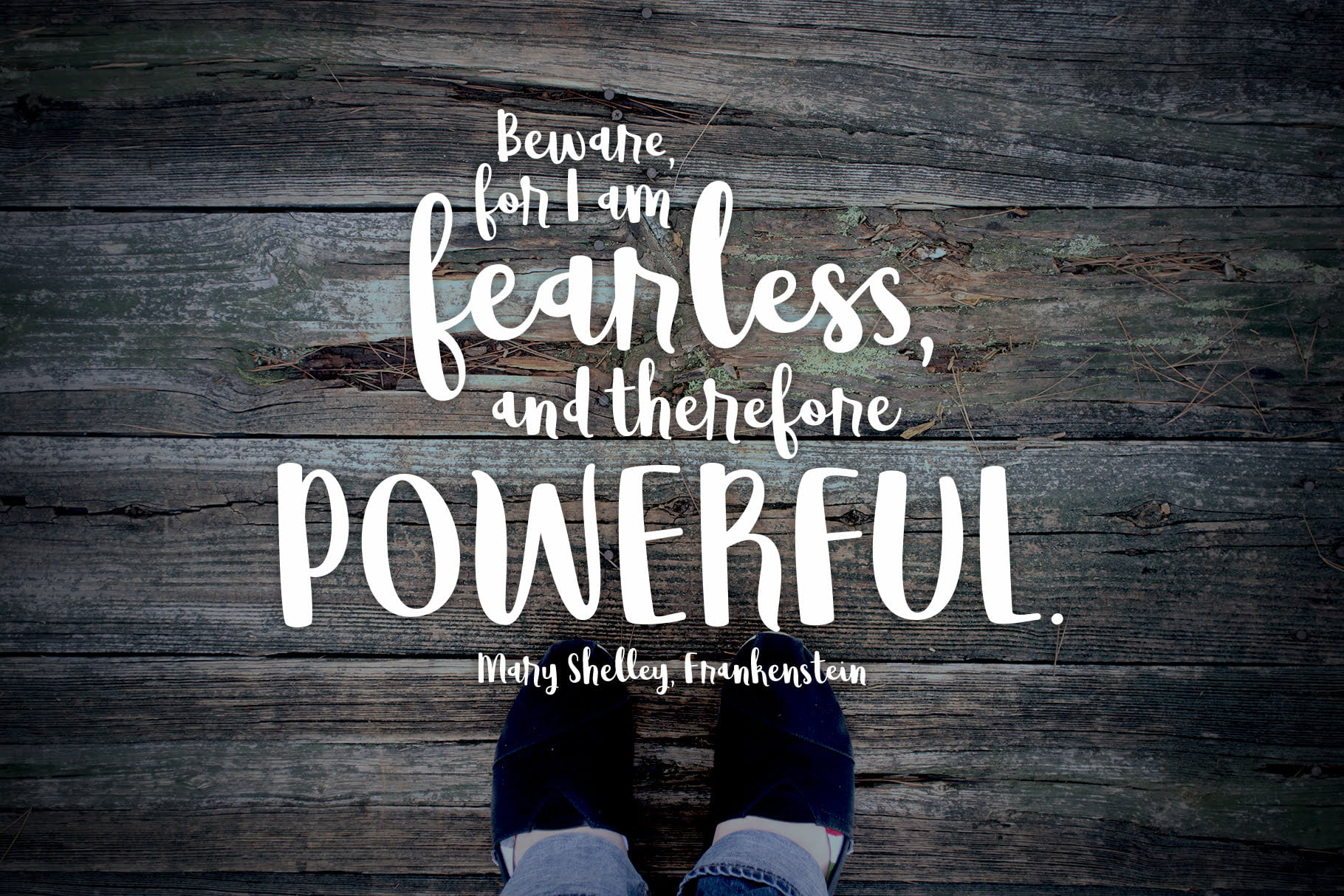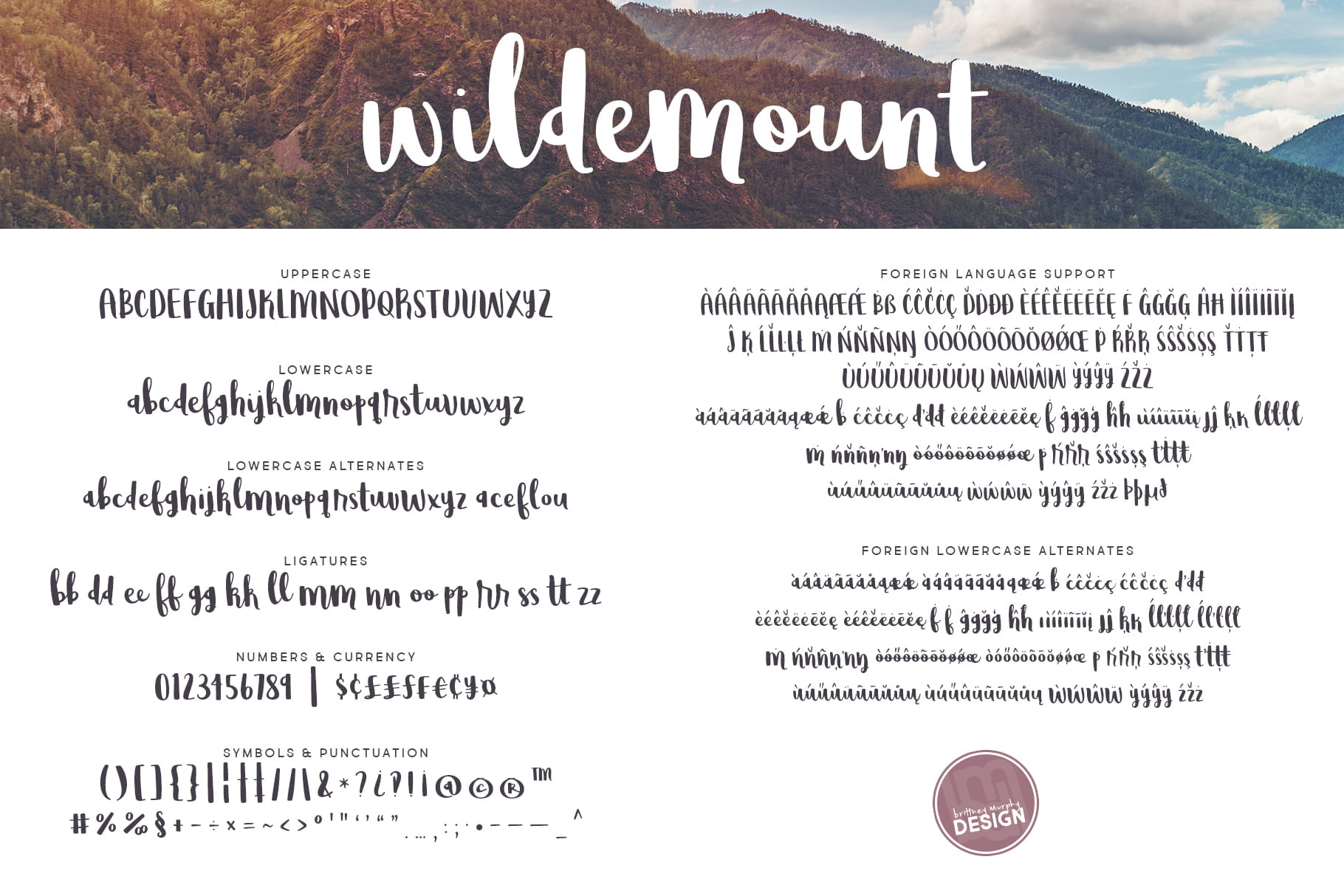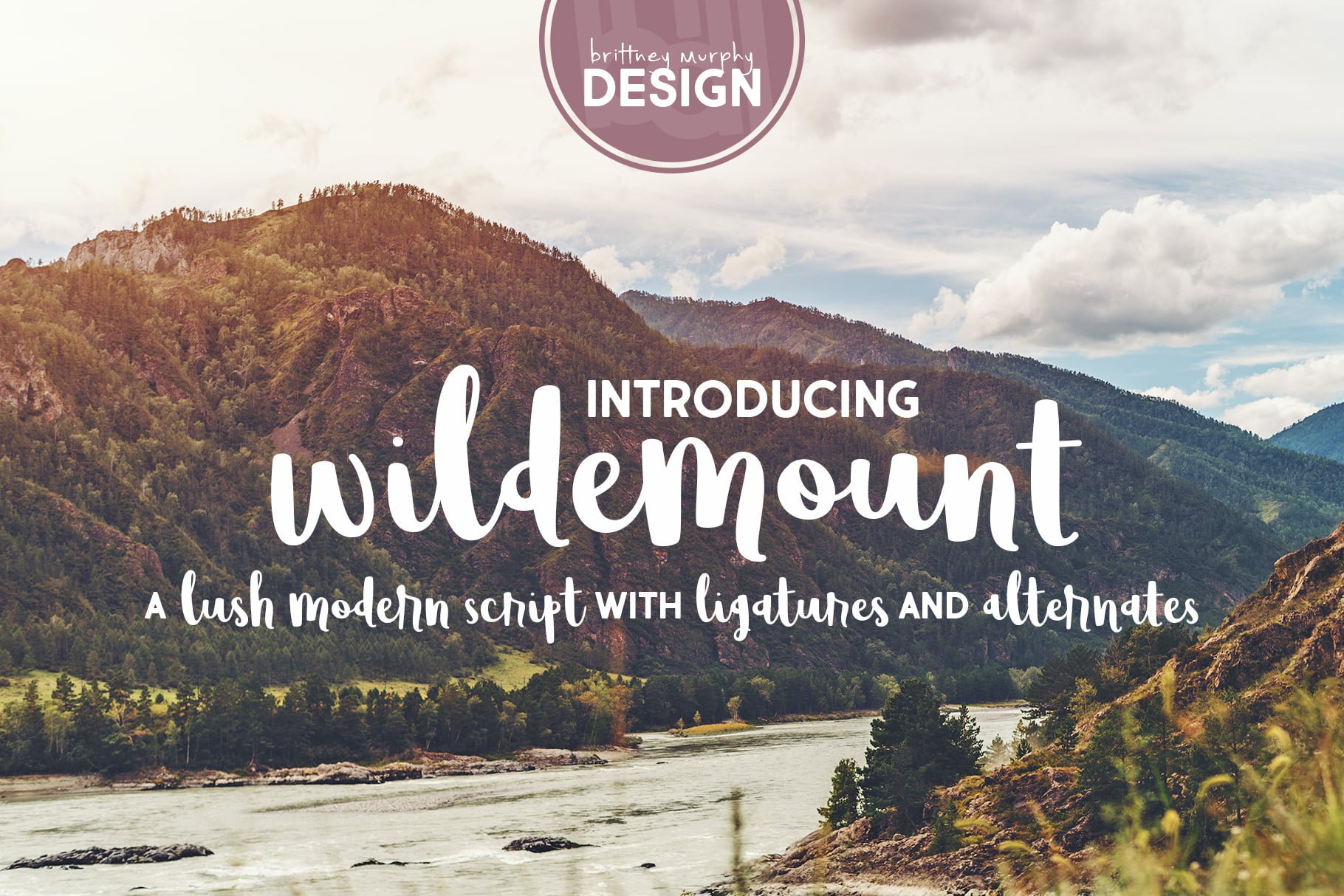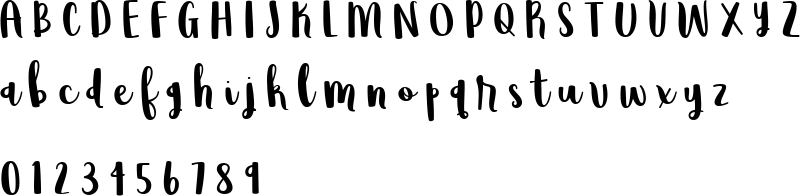
Wildemount
The name inspired by the lush and evocatively imaginative land featured in Matt Mercer’s Critical Role, Wildemount aims to elicit a fun and fantastical feel and contains lowercase alternates and ligatures to help create an organic handdrawn look.